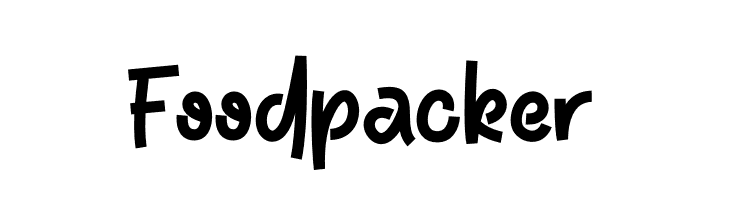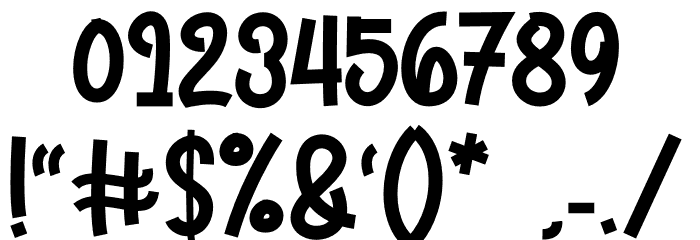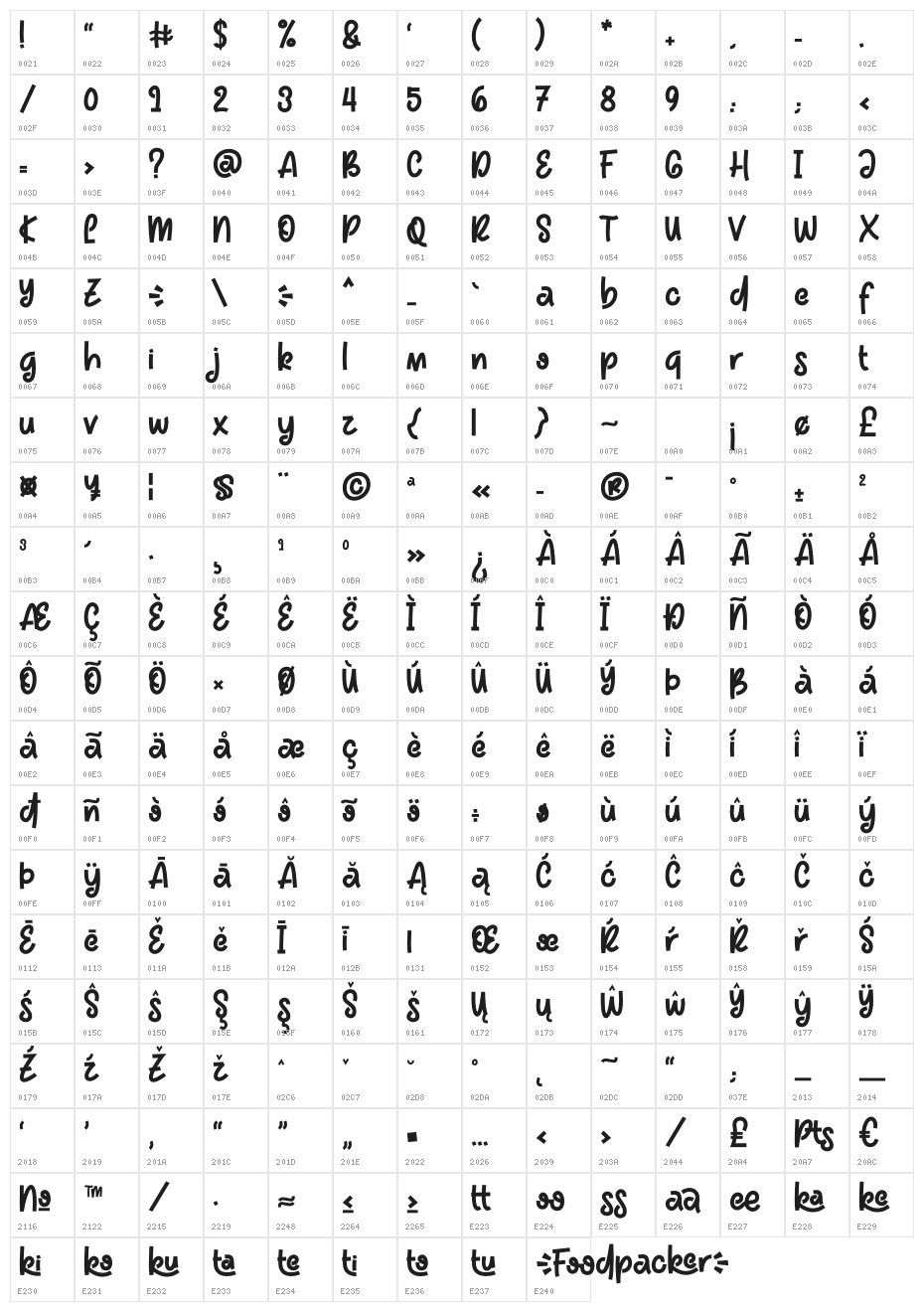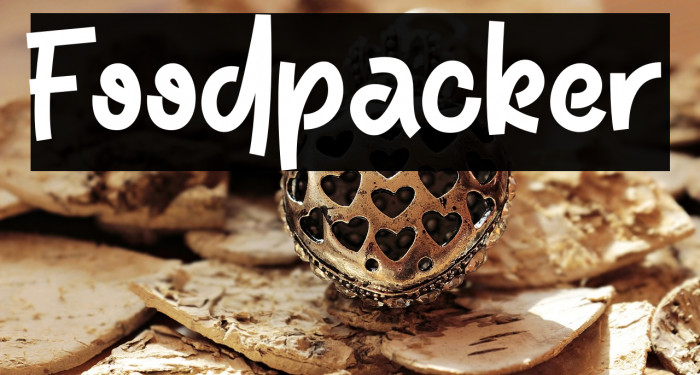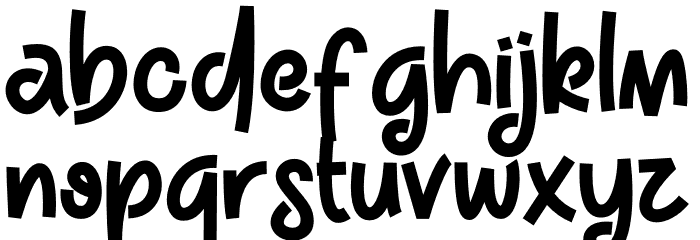
Foodpacker Font
Foodpacker Description
This font features a playful and bold design with a handwritten style that exudes a sense of fun and creativity. The letters are slightly slanted, giving a dynamic and energetic feel. The strokes are thick and rounded, providing a friendly and approachable appearance. The uppercase and lowercase letters maintain a consistent style, with unique flourishes that add character to each glyph. The numbers and special characters follow the same whimsical design, making this font versatile for various creative projects.